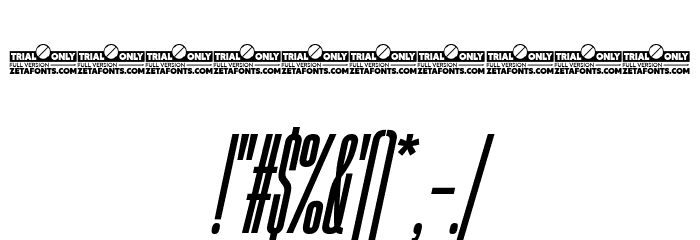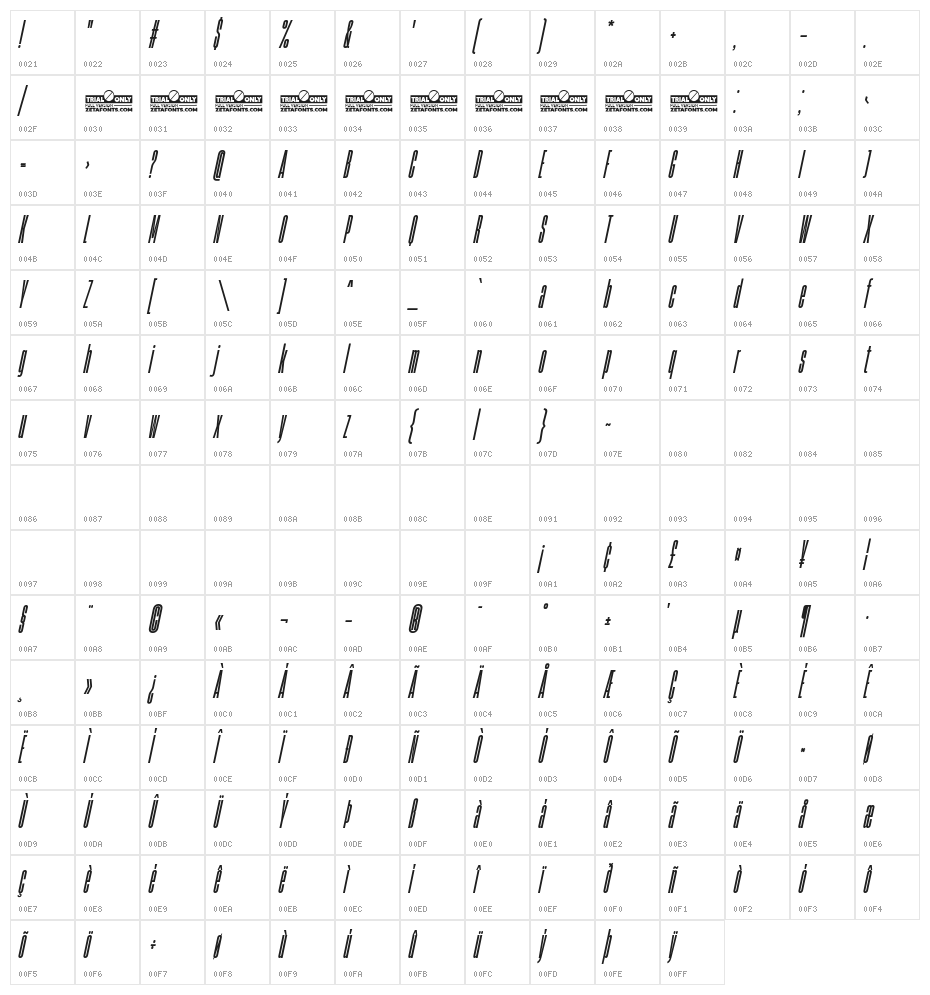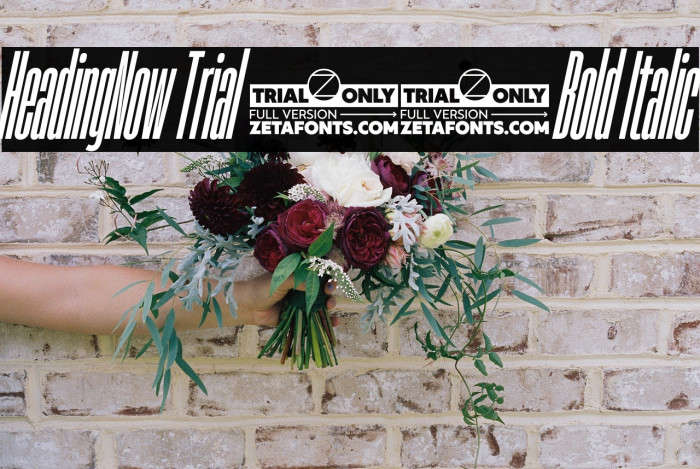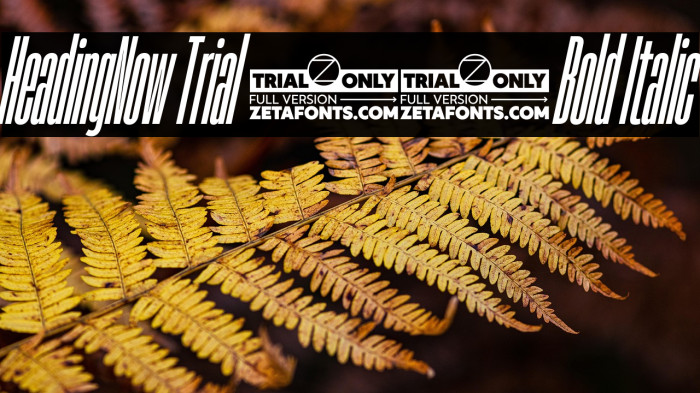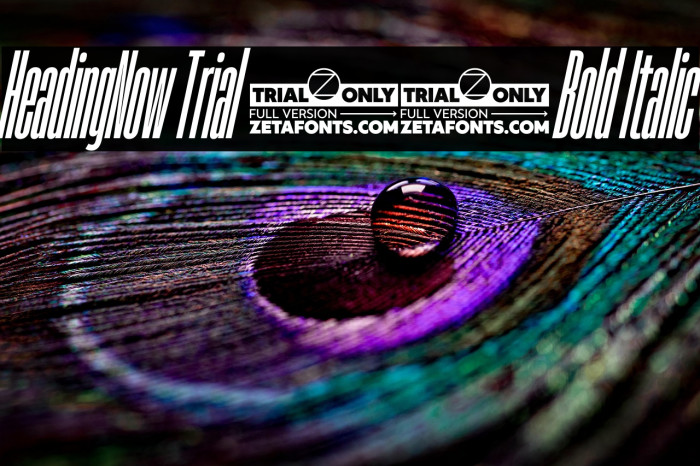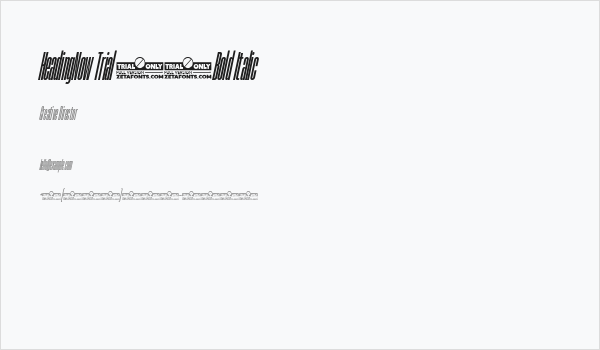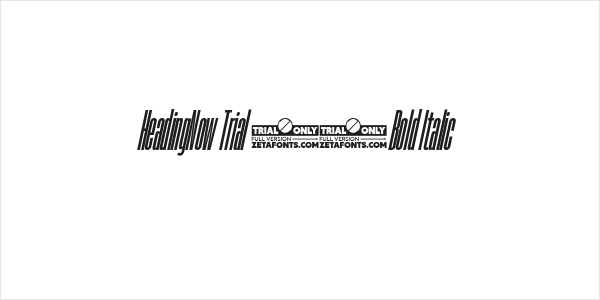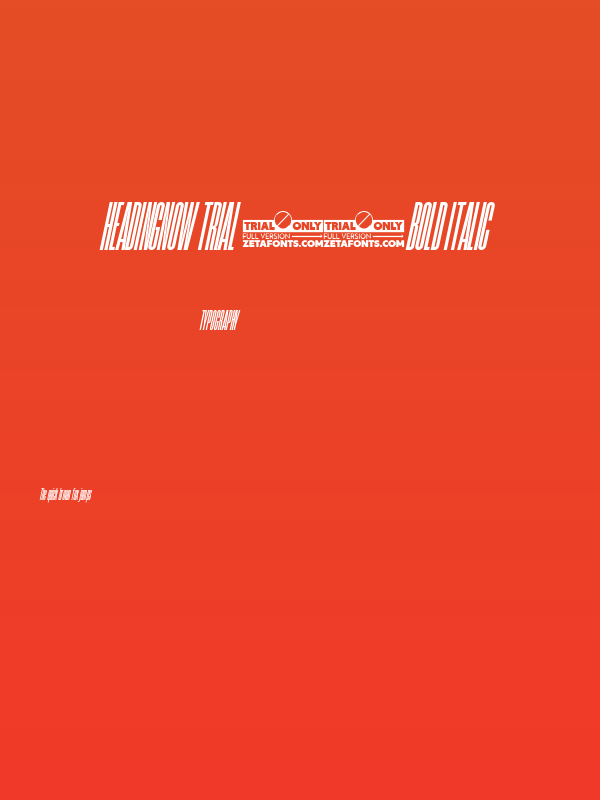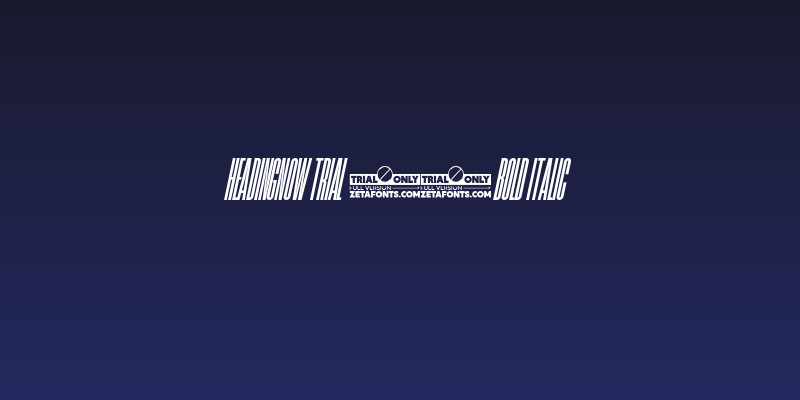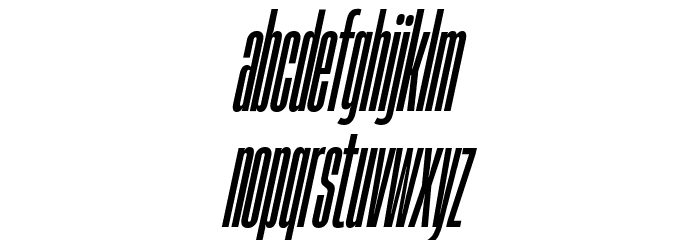
HeadingNow Trial 06 Bold Italic Font
HeadingNow Trial 06 Bold Italic Description
This font exhibits a bold and italic style with a modern and dynamic appearance. The letters are slanted, giving a sense of motion and energy. The strokes are thick and consistent, providing a strong visual impact. The uppercase and lowercase letters maintain a uniform width, contributing to a cohesive look. The numbers and special characters are designed to match the overall style, ensuring versatility across different uses. The font's design is sleek and contemporary, making it suitable for a variety of creative projects.
| Use Case | Headlines, Logos, Branding |
| Proposed Projects | Ideal for headlines, branding, advertising, and any project requiring a strong and modern typographic presence. |